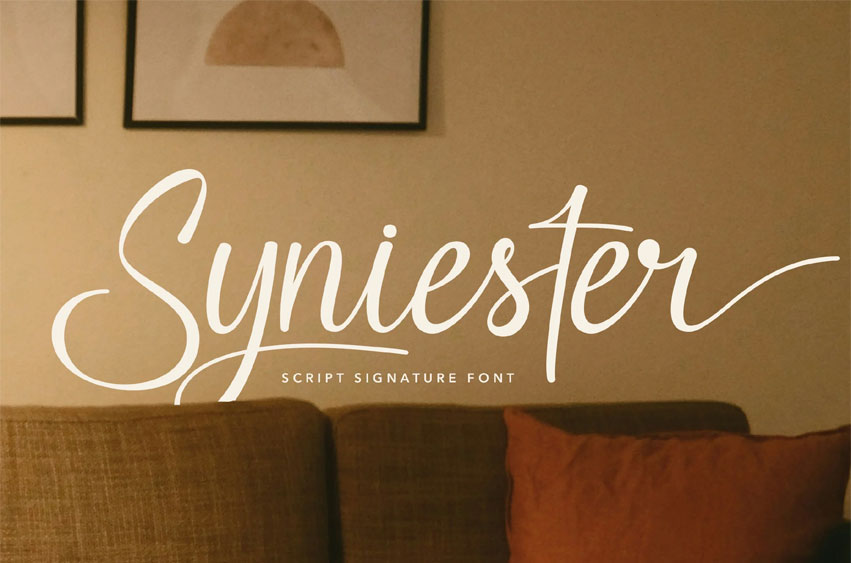
Syniester Font is a refined signature script font that combines modern elegance with the beauty of handcrafted lettering. With graceful strokes, smooth curves, and stylish ligatures, this font adds a luxurious feel to any design project. Perfect for branding, logos, wedding invitations, packaging, and editorial layouts, Syniester was designed to make every word look effortlessly sophisticated.
Luxury branding, personal signatures, beauty products, boutique packaging, social media posts, wedding stationery, and modern editorial designs.